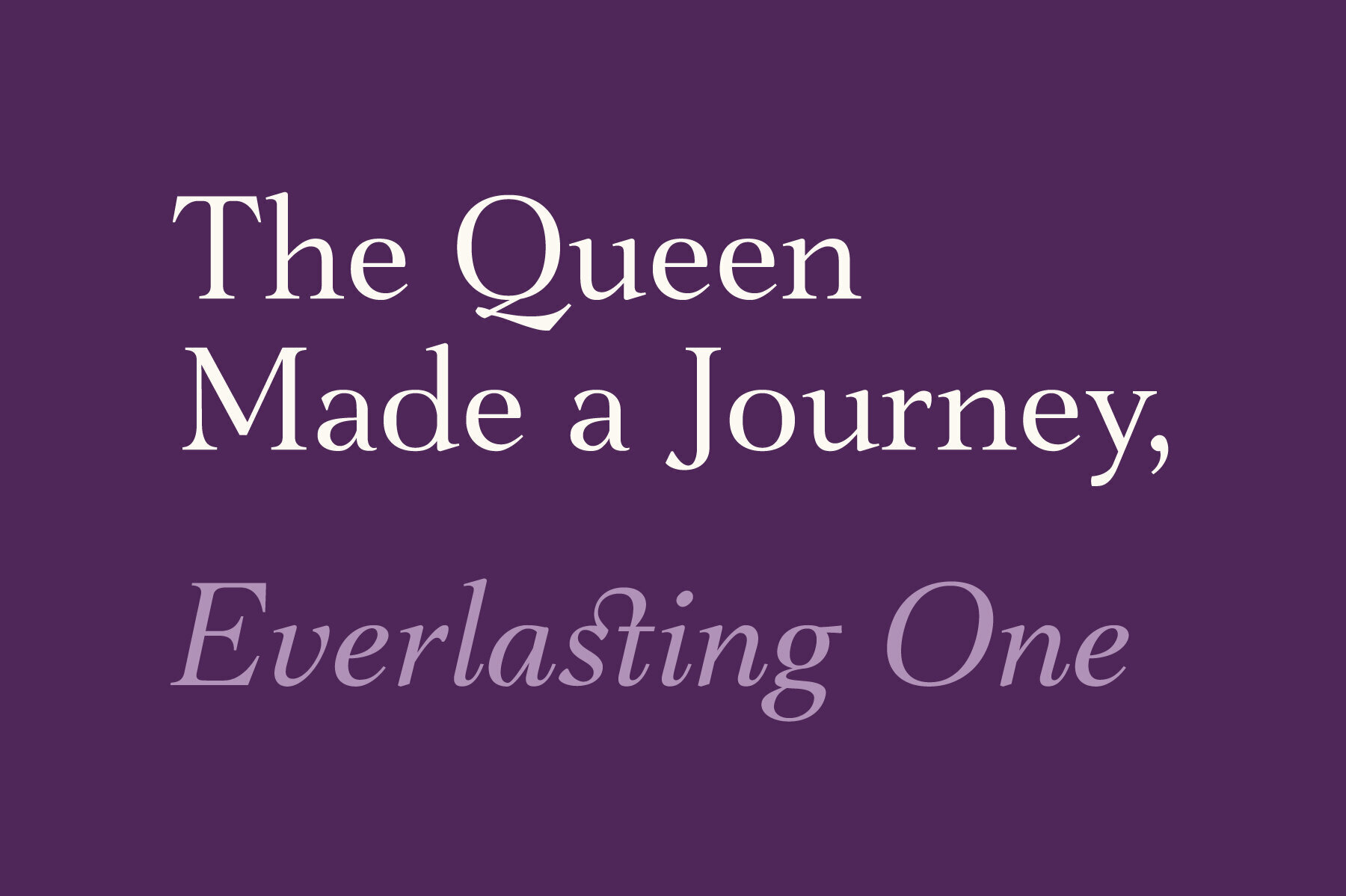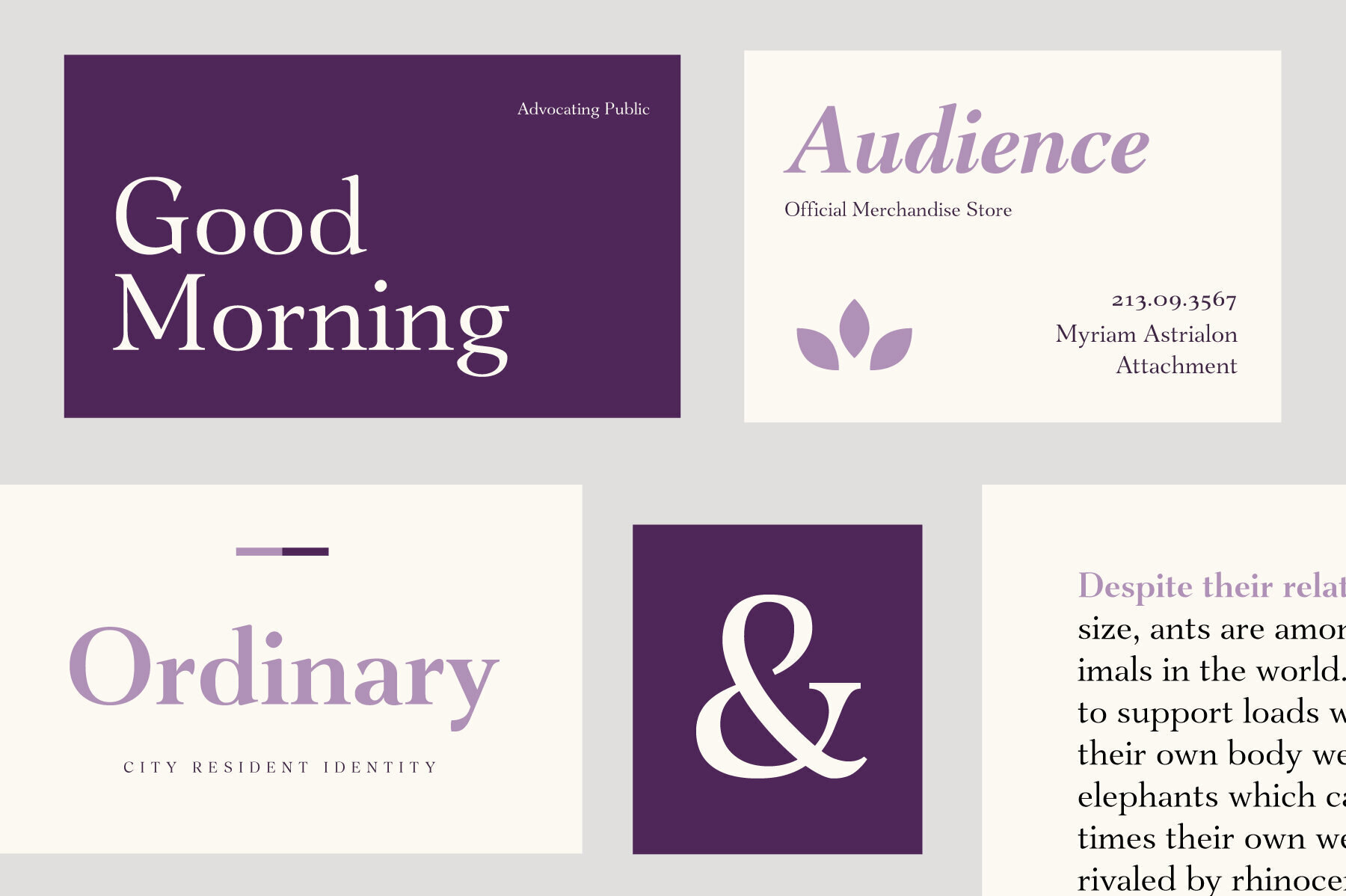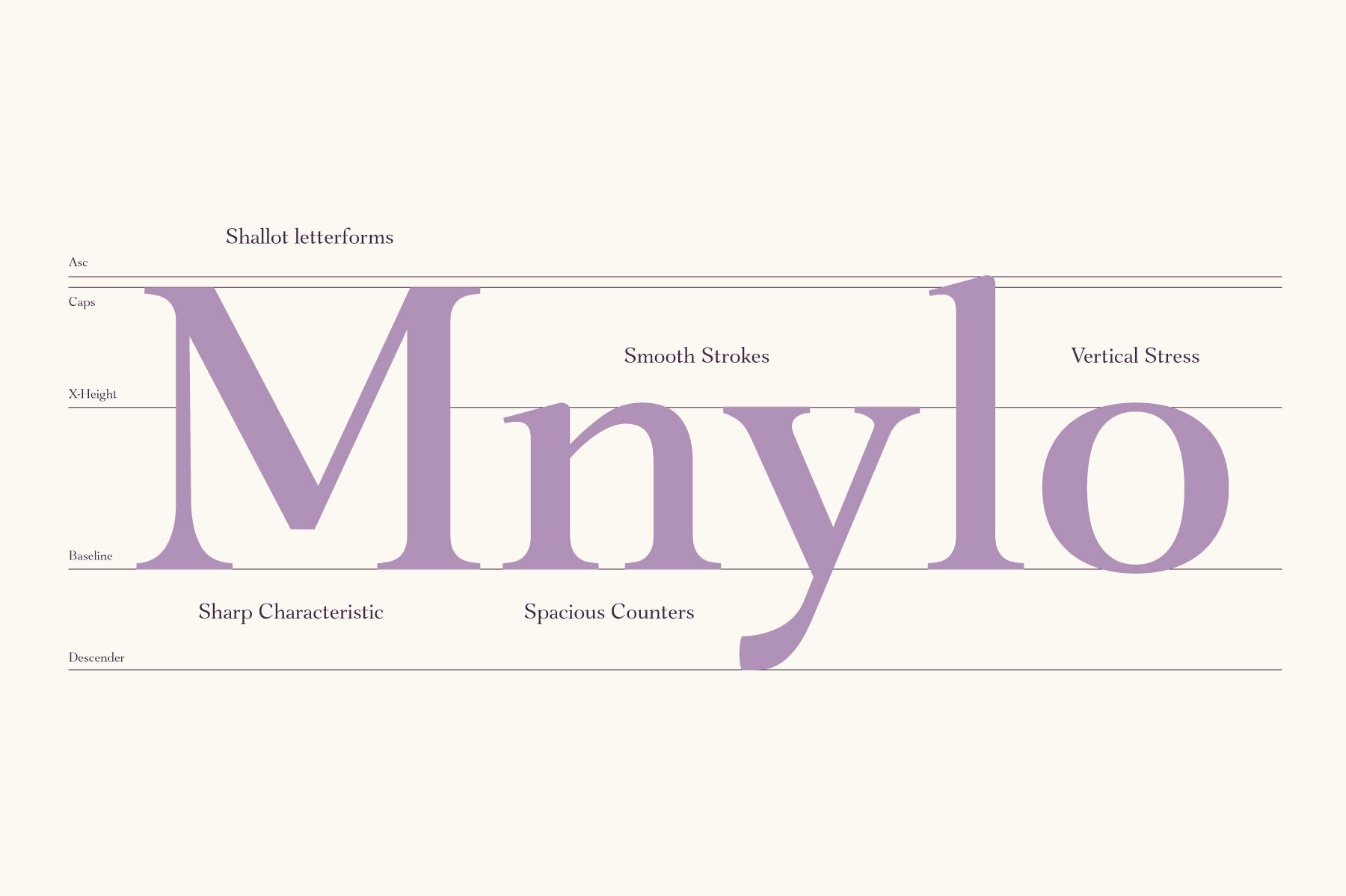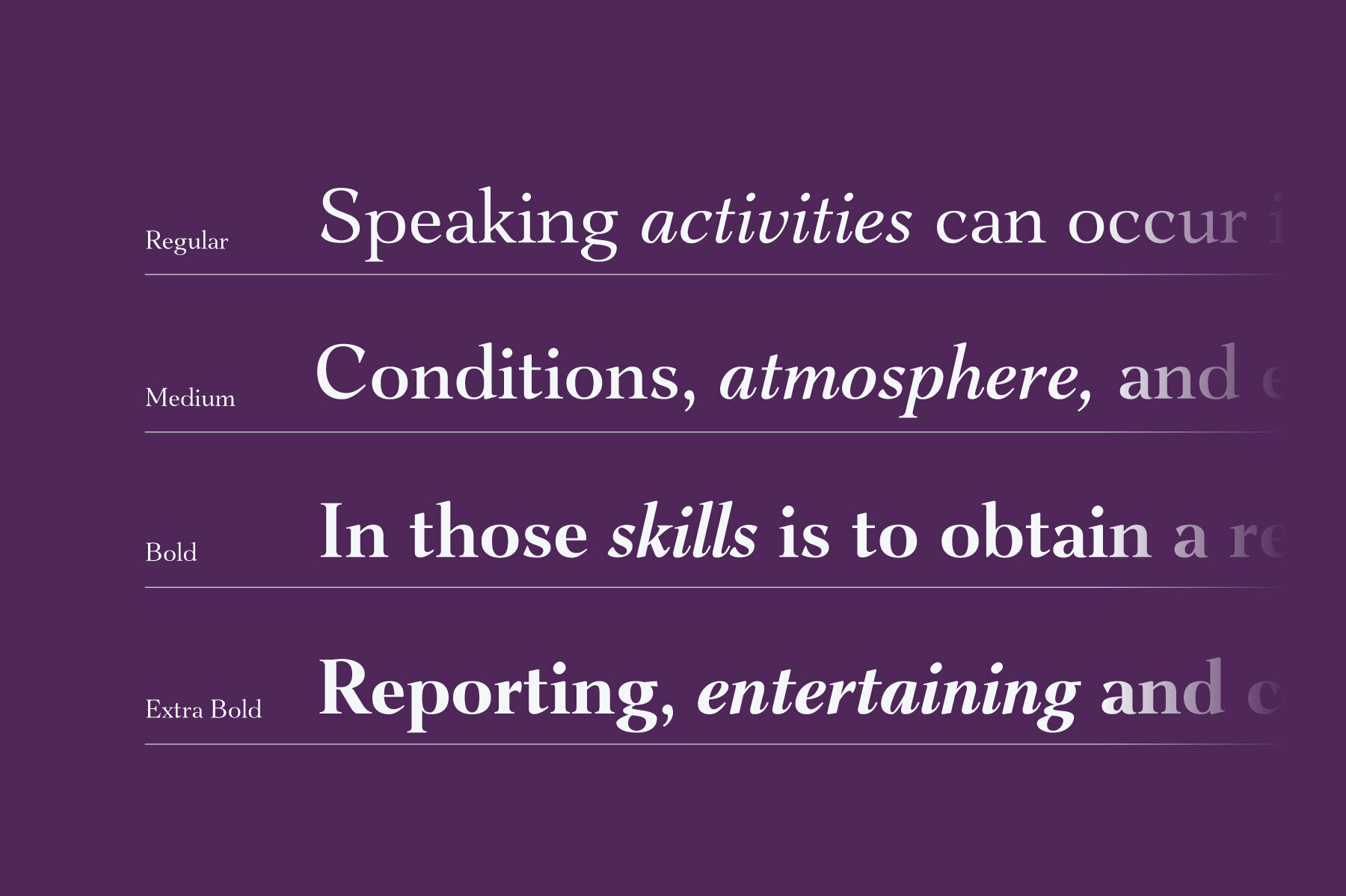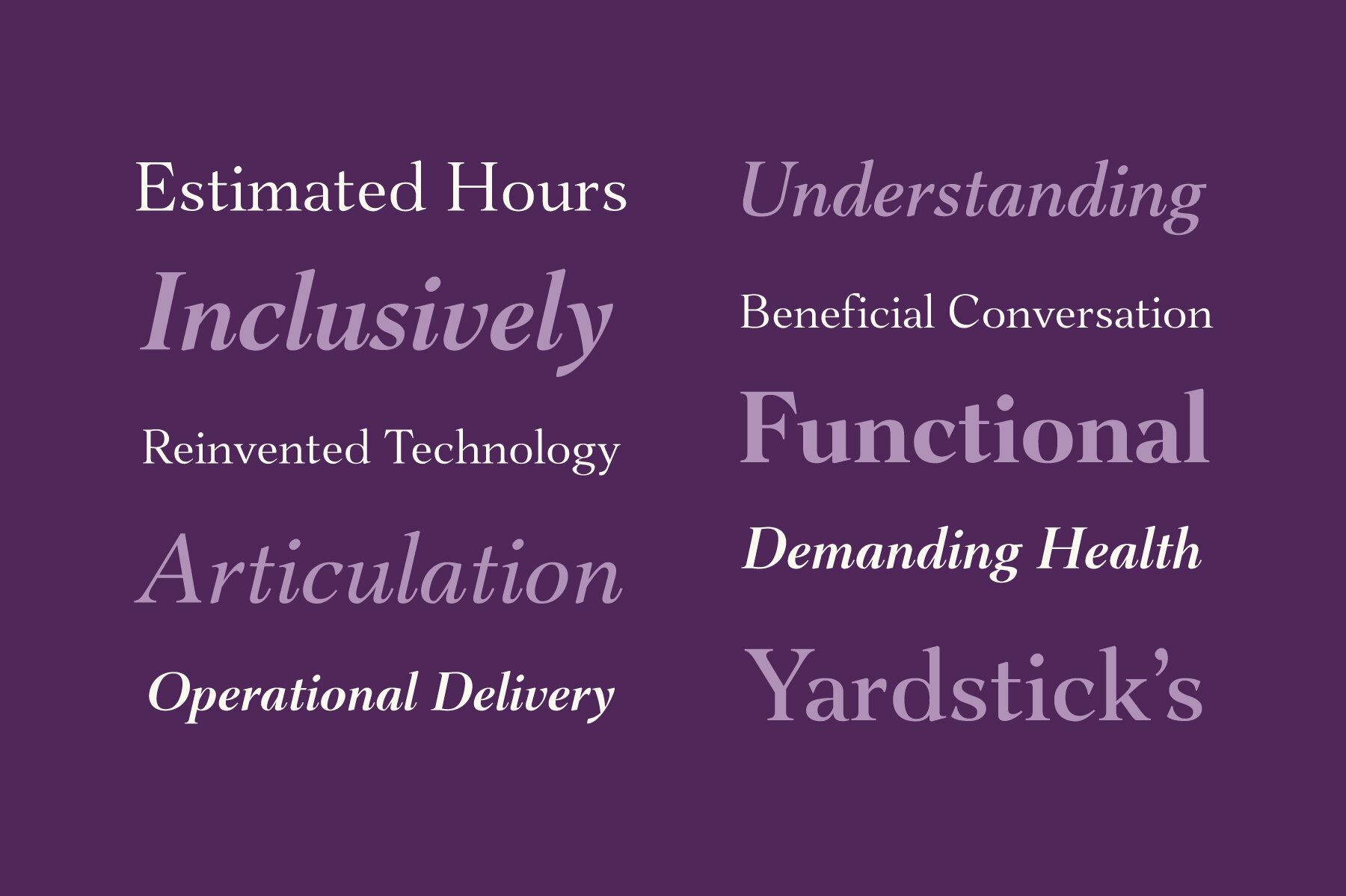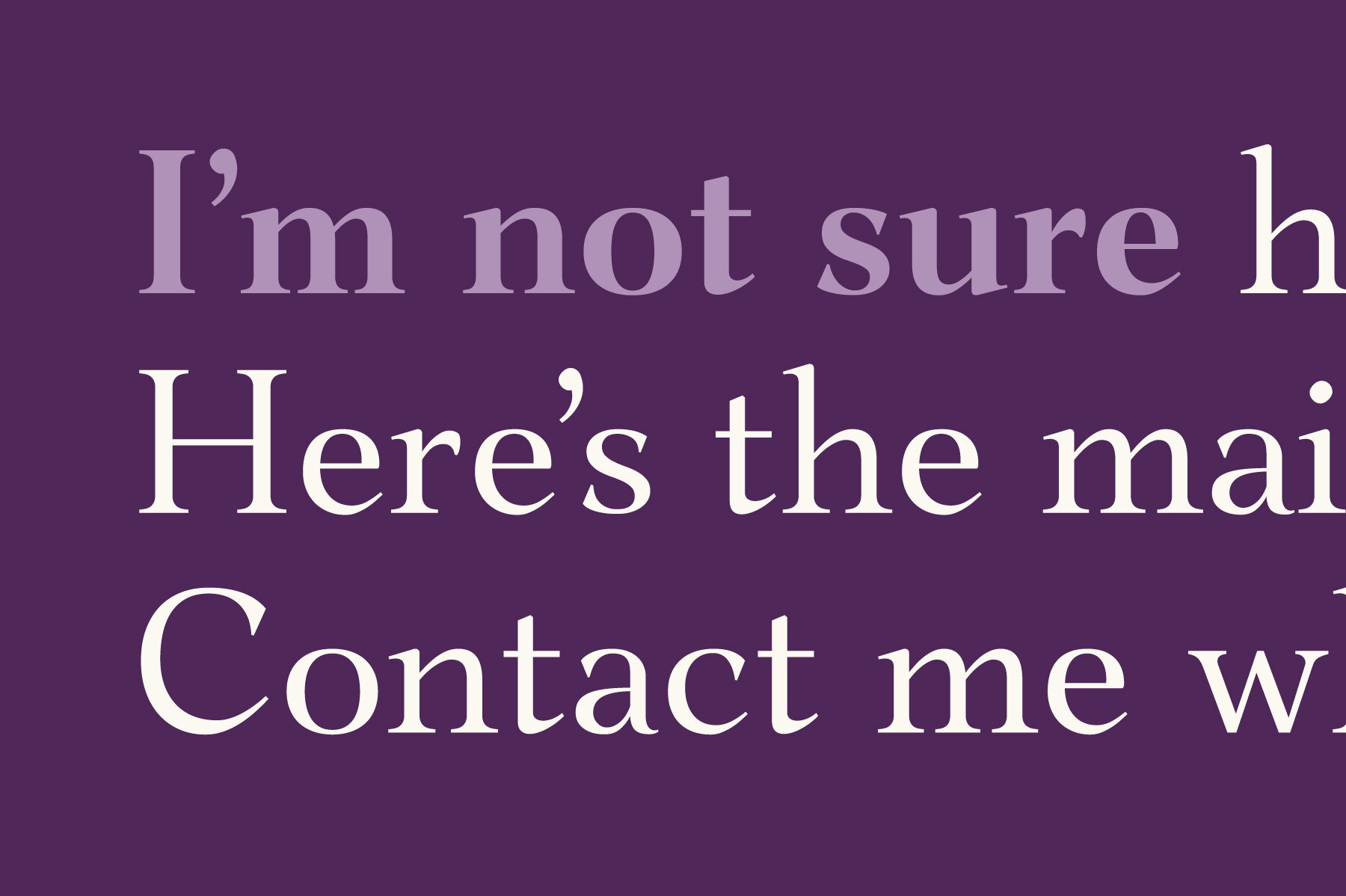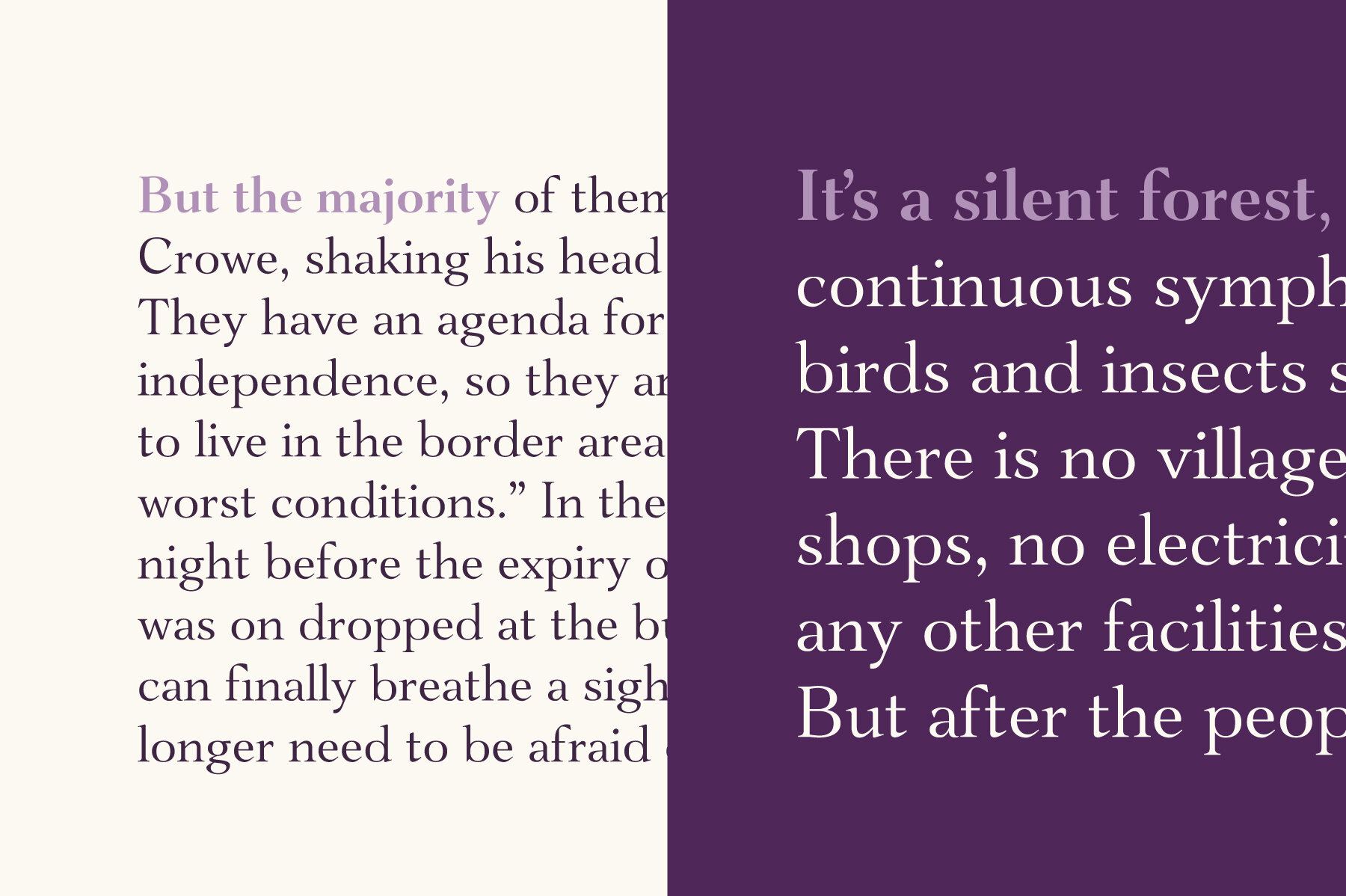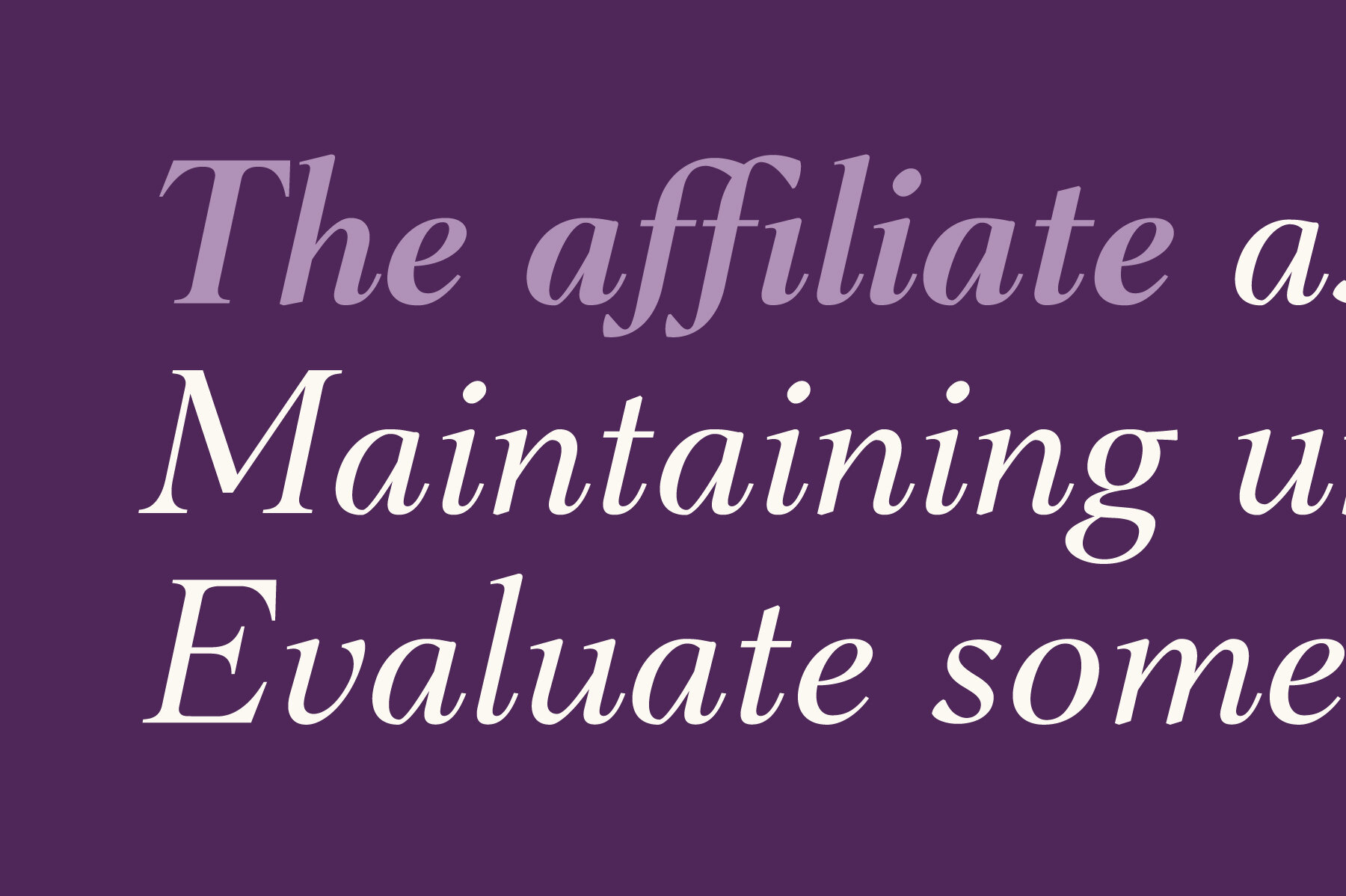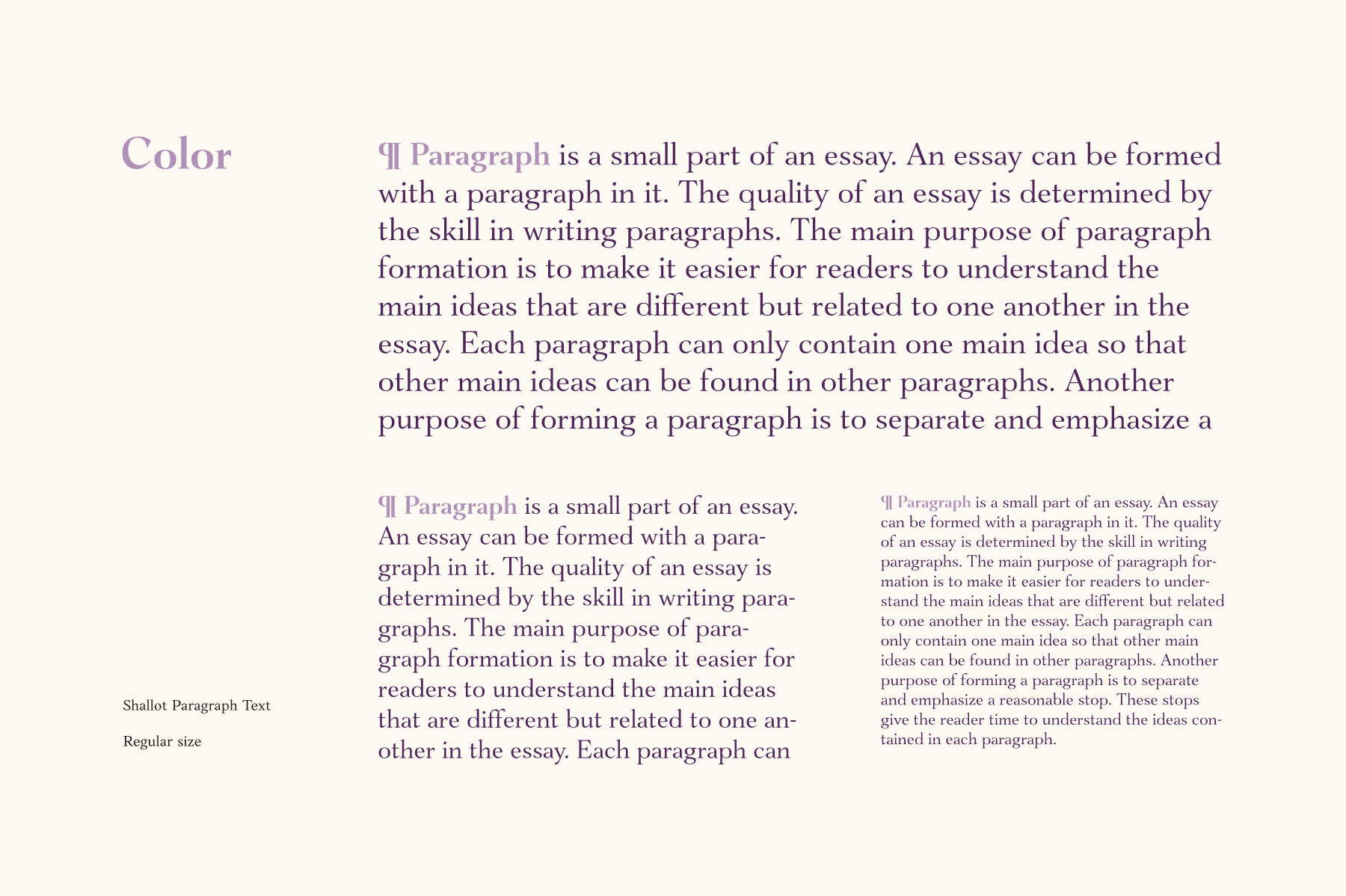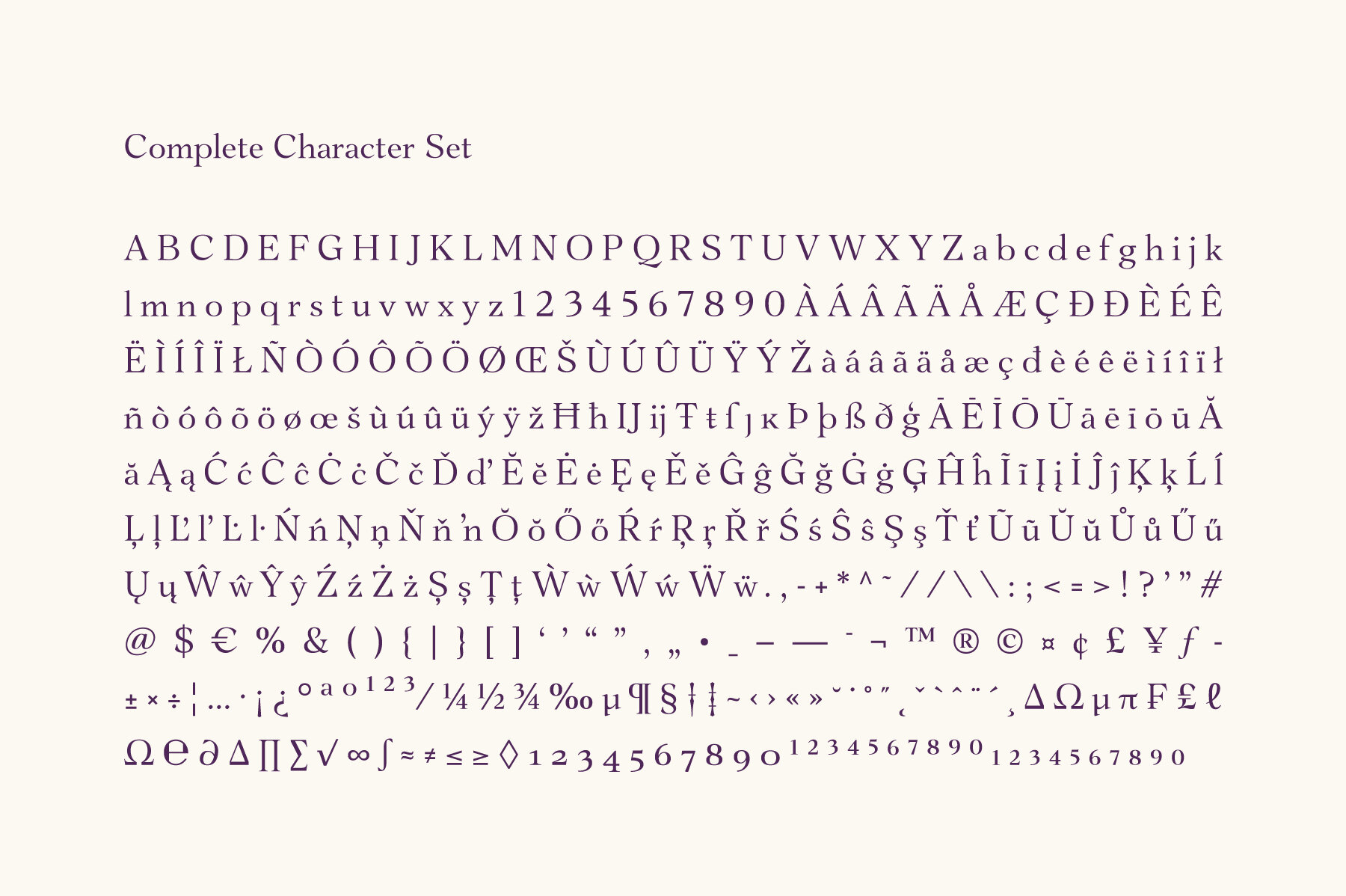
Shallot Font
Shallot is a serif font family with sharp and exquisite characteristic. The initial letterforms are made not completely based on calligraphic strokes, which make it more likely close to transitional serif style.
The letterforms have high contrast strokes and sharp serif with curved brackets. The upright styles have a fairly wide proportion. The italic styles have 12 degree angle and redrawn lowercase letters.
Shallot consist of 4 styles from regular to extrabold with each matching italics. It contains 462 glyphs that support broad latin languages.